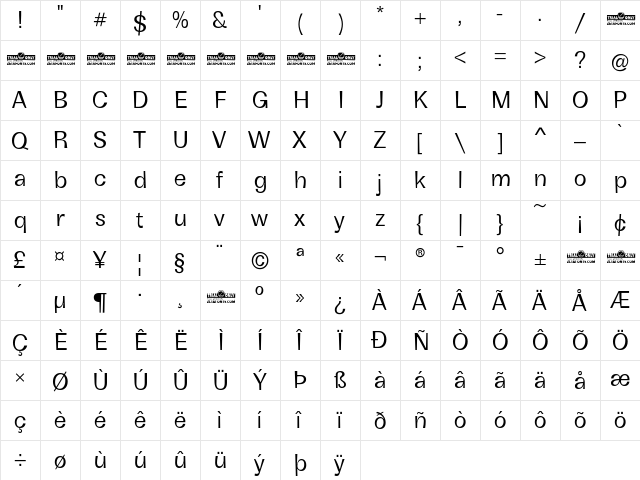
Boring Sans B Trial Regular
| Foundry | Zetafonts |
| Designer | Cosimo Lorenzo Pancini |
Design Context for Boring Sans B Trial Typeface
Boring Sans B Trial is a composed and adaptable typeface that performs quietly and consistently across a wide range of design contexts.
Pro Tip: Use Boring Sans B Trial in both headline and body roles to test its range before committing to a single application.